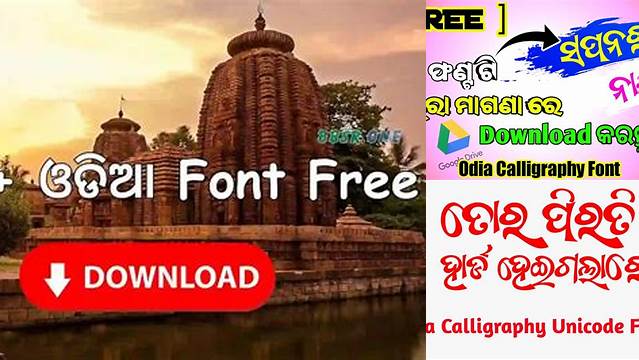
Odia Stylish Font Generator: Free Download Guide
Are you looking to spice up your Odia text with some stylish fonts? Well, you've come to the right place! In today's digital age, where visual appeal is paramount, using the right font can make all the difference. Whether you're creating social media posts, designing invitations, or working on a creative project, a stylish Odia font can add a touch of elegance and personality. Finding the perfect font can sometimes feel like searching for a needle in a haystack, especially when you're looking for something unique and eye-catching. But don't worry, guys, we've got you covered! This comprehensive guide will walk you through the world of Odia stylish font generators, helping you discover the best resources for free downloads and creative inspiration. We will explore various online tools and resources that offer a wide range of Odia fonts, from traditional to modern, ensuring you find the perfect fit for your needs. We'll also delve into the importance of using the right font for different contexts and how to effectively utilize these fonts in your designs. So, buckle up and get ready to transform your Odia text into a visual masterpiece! The digital landscape offers a plethora of options for generating stylish fonts, but navigating these options can be overwhelming. Our goal is to simplify this process by providing you with a curated list of the best free Odia stylish font generators available. We'll discuss their features, ease of use, and the variety of fonts they offer. By the end of this article, you'll have a clear understanding of how to access and use these tools to create stunning Odia text designs. We understand that many of you might be wondering about the legality and safety of downloading fonts from the internet. We'll address these concerns by highlighting reputable sources and discussing the importance of checking font licenses before using them in commercial projects. Ensuring you have the right permissions is crucial to avoid any copyright issues down the line. So, let's dive into the world of Odia stylish fonts and discover how you can enhance your text with beautiful typography.
Why Use a Stylish Odia Font?
Stylish Odia fonts are more than just a way to write text; they are a powerful tool for communication and expression. The right font can evoke emotions, convey messages, and capture attention. In a world saturated with information, using a unique and stylish font can help your content stand out from the crowd. Think about it: when you see a beautifully designed poster or a captivating social media graphic, what's one of the first things that catches your eye? Often, it's the font. A well-chosen font can set the tone and mood of your message, making it more engaging and memorable for your audience. For instance, a traditional Odia font might be perfect for a formal invitation or a cultural event, while a modern, sans-serif font could be ideal for a website or a marketing campaign. The possibilities are endless, and the impact of a stylish font should not be underestimated. But it's not just about aesthetics. Stylish fonts can also play a crucial role in branding. If you're building a business or creating a personal brand, your font choices can help you establish a unique identity. A consistent use of fonts across your platforms can reinforce your brand's personality and make it more recognizable to your audience. Imagine a logo with a distinctive font – it becomes an instant identifier, setting you apart from your competitors. Moreover, stylish Odia fonts can help bridge the gap between tradition and modernity. As technology advances, it's essential to preserve cultural heritage while also embracing contemporary design trends. By using stylish Odia fonts, you can create designs that honor your cultural roots while appealing to a modern audience. This blend of tradition and innovation is particularly important in fields like publishing, advertising, and digital media. So, whether you're designing a wedding invitation, creating a website, or crafting a social media post, remember that the font you choose is a reflection of your message and your brand. A stylish Odia font can elevate your work, making it more visually appealing and impactful. Let's explore how you can find and download these fantastic fonts for free!
How to Use an Odia Stylish Font Generator
Okay, guys, let's get into the nitty-gritty of using an Odia stylish font generator! These tools are super handy for creating unique and eye-catching text designs. Whether you're working on a social media post, a website banner, or any other creative project, a font generator can help you stand out from the crowd. The basic idea behind an Odia stylish font generator is simple: you type in your text, and the generator transforms it into a variety of different fonts and styles. Many generators offer a range of options, from cursive and handwritten styles to bold and futuristic designs. This allows you to experiment and find the perfect font to match your message and aesthetic. Using a font generator is typically a straightforward process. First, you'll need to find a generator that supports Odia script. A quick Google search for "Odia font generator" should yield several results. Once you've found a generator you like, simply type your text into the provided text box. The generator will then display your text in a variety of different fonts. Most generators allow you to scroll through the options and choose the one you like best. Some generators also offer customization options, such as changing the font size, color, and adding special effects like shadows or outlines. This gives you even more control over the final look of your text. Once you've found the perfect font and customized it to your liking, you can usually copy and paste the generated text into your project. However, it's important to note that some font generators create text as images rather than actual fonts. This means you won't be able to edit the text directly once it's pasted. Instead, you'll be inserting an image of the text. While this is fine for many applications, it's something to keep in mind if you need to be able to edit the text later. Another thing to consider when using an Odia stylish font generator is the readability of the generated text. While fancy fonts can look great, it's important to ensure that your text is still easy to read. Avoid fonts that are too stylized or cluttered, as these can make your message difficult to understand. Choose fonts that are both stylish and legible, ensuring that your text looks good and effectively communicates your message. In addition to online font generators, there are also apps and software programs that offer similar functionality. These tools often provide more advanced features and customization options, making them a great choice for professional designers or anyone who wants to take their font game to the next level. So, whether you're a casual user or a design pro, an Odia stylish font generator can be a valuable tool in your creative arsenal. In the next section, we'll explore some specific font styles that are popular for Odia text, giving you some inspiration for your next project.
Popular Odia Font Styles
When it comes to Odia fonts, there's a rich tapestry of styles to explore, guys! From traditional scripts that evoke a sense of history and culture to modern designs that reflect contemporary aesthetics, the options are truly diverse. Understanding the different styles can help you choose the perfect font for your project, whether it's a formal invitation, a website design, or a social media post. One of the most popular categories of Odia fonts is the traditional styles. These fonts often feature elegant curves and intricate details, reminiscent of the ancient Odia script. They are perfect for projects that require a touch of sophistication and cultural authenticity, such as wedding invitations, religious texts, or historical documents. Fonts like Kalinga and Oriya MN are excellent examples of traditional Odia fonts that are widely used and respected. On the other end of the spectrum, we have modern Odia fonts. These fonts tend to be cleaner and more minimalist in design, often incorporating sans-serif styles. They are ideal for digital applications, such as websites, apps, and social media graphics, where readability and clarity are paramount. Modern Odia fonts can also be used to create a contemporary and stylish look for print materials, such as brochures and posters. Fonts like Utkal and Gohiri Lipsi are popular choices for modern Odia designs. In addition to traditional and modern styles, there are also several Odia fonts that blend elements of both. These fonts offer a unique and versatile option, combining the elegance of traditional scripts with the simplicity of modern designs. They can be used in a wide range of projects, from branding and advertising to editorial design and publishing. Fonts like AkrutiOri1Orn and AkrutiOriaPrakash are great examples of blended styles that offer a balance of tradition and modernity. Another exciting trend in Odia typography is the use of decorative fonts. These fonts are designed to be eye-catching and attention-grabbing, often featuring unique shapes, patterns, and embellishments. Decorative Odia fonts are perfect for headlines, logos, and other display elements where you want to make a bold statement. However, it's important to use decorative fonts sparingly, as they can be overwhelming if used in large blocks of text. Fonts like Olodia and certain handwritten styles can fall into this category. Handwritten Odia fonts are another popular choice, particularly for projects that require a personal and informal touch. These fonts mimic the look of handwriting, adding a sense of warmth and authenticity to your designs. Handwritten fonts are often used for invitations, greeting cards, and social media posts. They can also be effective for adding a human element to corporate communications and marketing materials. So, as you can see, there's a wide variety of Odia font styles to choose from, each with its own unique character and charm. By exploring these different styles, you can find the perfect font to express your message and create stunning visual designs. In the next section, we'll discuss some tips for using these fonts effectively in your projects.
Tips for Using Odia Fonts Effectively
Using Odia fonts effectively is an art, guys! It's not just about choosing a stylish font; it's about understanding how to use that font in a way that enhances your message and creates a visually appealing design. Here are some tips to help you make the most of your Odia fonts: First and foremost, consider the context of your project. The font you choose should be appropriate for the message you're trying to convey and the audience you're trying to reach. For example, a formal invitation might call for a traditional Odia font, while a social media post might be better suited to a modern or handwritten style. Think about the overall tone and mood of your project and choose a font that aligns with that. Readability is another crucial factor to consider. While a font may look beautiful, it's essential to ensure that it's also easy to read. Avoid fonts that are too stylized or cluttered, as these can make your text difficult to understand. Choose fonts that are clear and legible, especially for body text and longer passages. Experiment with different font sizes and weights to find the optimal balance between aesthetics and readability. Font pairing is a technique that involves combining two or more fonts in a design. When done well, font pairing can add visual interest and create a harmonious look. However, it's important to choose fonts that complement each other rather than clash. A good rule of thumb is to pair a display font (used for headlines and titles) with a simpler font for body text. You can also try pairing a traditional Odia font with a modern sans-serif font for a unique and balanced look. Hierarchy is key in any design, and fonts play a crucial role in establishing visual hierarchy. Use different font sizes, weights, and styles to create a clear hierarchy of information. For example, use a larger and bolder font for headlines, a smaller font for subheadings, and an even smaller font for body text. This will help guide the reader's eye through your design and make it easier to understand your message. Kerning and tracking are typographic adjustments that can significantly impact the readability and visual appeal of your text. Kerning refers to the spacing between individual letters, while tracking refers to the overall spacing between all the letters in a word or line of text. Adjusting these settings can help improve the spacing and balance of your text, making it more visually pleasing and easier to read. Finally, don't be afraid to experiment and try new things! The world of Odia fonts is vast and diverse, and there's always something new to discover. Play around with different fonts, styles, and combinations to find what works best for your project. And remember, the most important thing is to have fun and let your creativity shine! In conclusion, using Odia fonts effectively is a combination of choosing the right font, understanding typography principles, and experimenting with different styles. By following these tips, you can create stunning designs that showcase the beauty and versatility of Odia script. So, go ahead and explore the world of Odia fonts and unleash your creativity!
So, guys, we've journeyed through the exciting world of Odia stylish font generators and free downloads! We've explored why stylish fonts are so important, where to find them, how to use font generators, popular Odia font styles, and tips for using them effectively. Hopefully, you now feel equipped to create stunning visual designs with beautiful Odia text. Remember, the right font can make all the difference in conveying your message and capturing your audience's attention. Whether you're designing a website, creating social media graphics, or working on a personal project, a stylish Odia font can add a touch of elegance and personality. Don't be afraid to experiment with different fonts and styles to find what works best for you. The online world is filled with amazing resources, from font repositories like Google Fonts and DaFont to online font generators and design communities. Take advantage of these tools and let your creativity shine! But remember, always respect font licenses and terms of use, especially when using fonts for commercial projects. It's important to ensure that you have the necessary permissions to avoid any legal issues down the line. And most importantly, have fun with it! Typography is an art form, and using Odia fonts is a wonderful way to celebrate and preserve the beauty of the Odia script. So, go out there and create something amazing! We hope this guide has been helpful and inspiring. If you have any questions or want to share your own experiences with Odia fonts, feel free to leave a comment below. We love hearing from our readers and learning about your creative projects. Happy designing, guys! And remember, the world of typography is constantly evolving, so keep exploring, keep learning, and keep creating. The possibilities are endless, and your unique vision is what will make your designs truly special. So, go ahead and make your mark on the world with stylish Odia fonts!